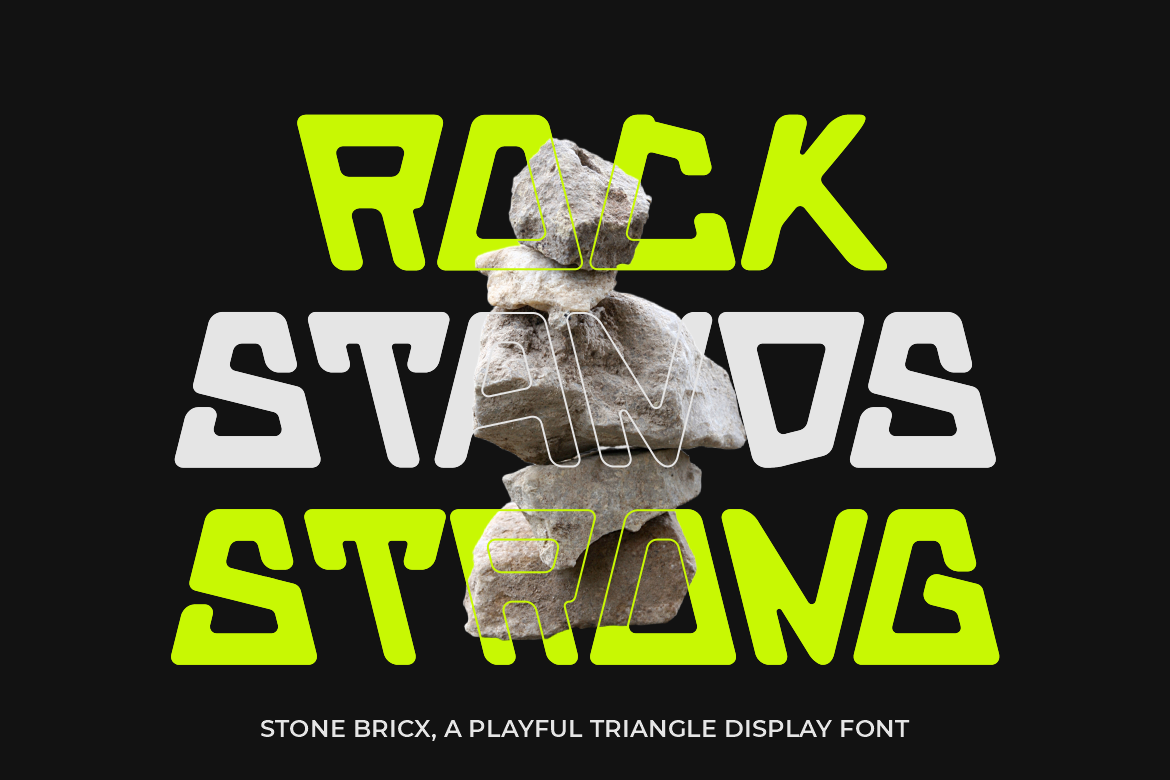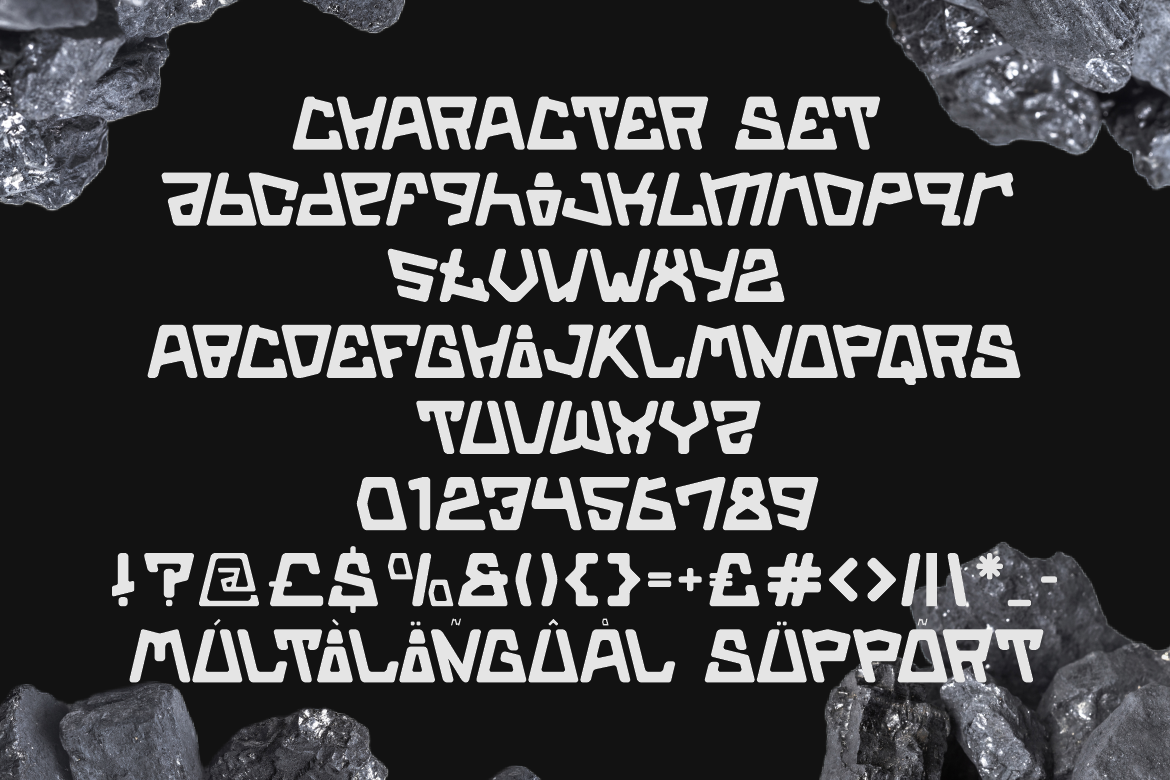
Stone Bricx Triangle Display Font delivers a chunky, angular voice with playful energy and rugged character. Its letters use broad strokes, uneven rhythm, and sharp triangle details that create a carved stone feel. The shapes look bold, compact, and eye-catching, so short words gain instant impact. This structure works well for logo design, strong headlines, poster titles, and cover layouts. It suits projects that need a raw presence with a fun edge. The overall character feels creative, bold, and memorable without losing readability in large text.
This typeface fits branding for rock shops, stone craft businesses, mining brands, outdoor events, and adventure campaigns. It also works for geology centers, museum posters, travel graphics, and nature themed promotions. The playful forms give logos a friendly tone, while the rugged angles add strength and texture. You can use it for stickers, book covers, magazine titles, packaging, signage, and advertising. Stone Bricx Triangle Display Font also supports film titles, comic covers, and game graphics that need a bold visual hook and a distinctive identity.
The letterforms feel hand-built, with irregular widths, tilted cuts, and strong counters shaped by triangle accents. That visual language helps brands look expressive, earthy, and original in competitive markets. It is a smart choice for cafe posters, snack packaging, souvenir labels, and creative merchandise tags with a rocky theme. Beyond retail, it suits studio branding, event flyers, title cards, and creative business promotions. Use it when you want a logo or headline that feels energetic, playful, and tough. It brings character to every project with a clear and striking personality.